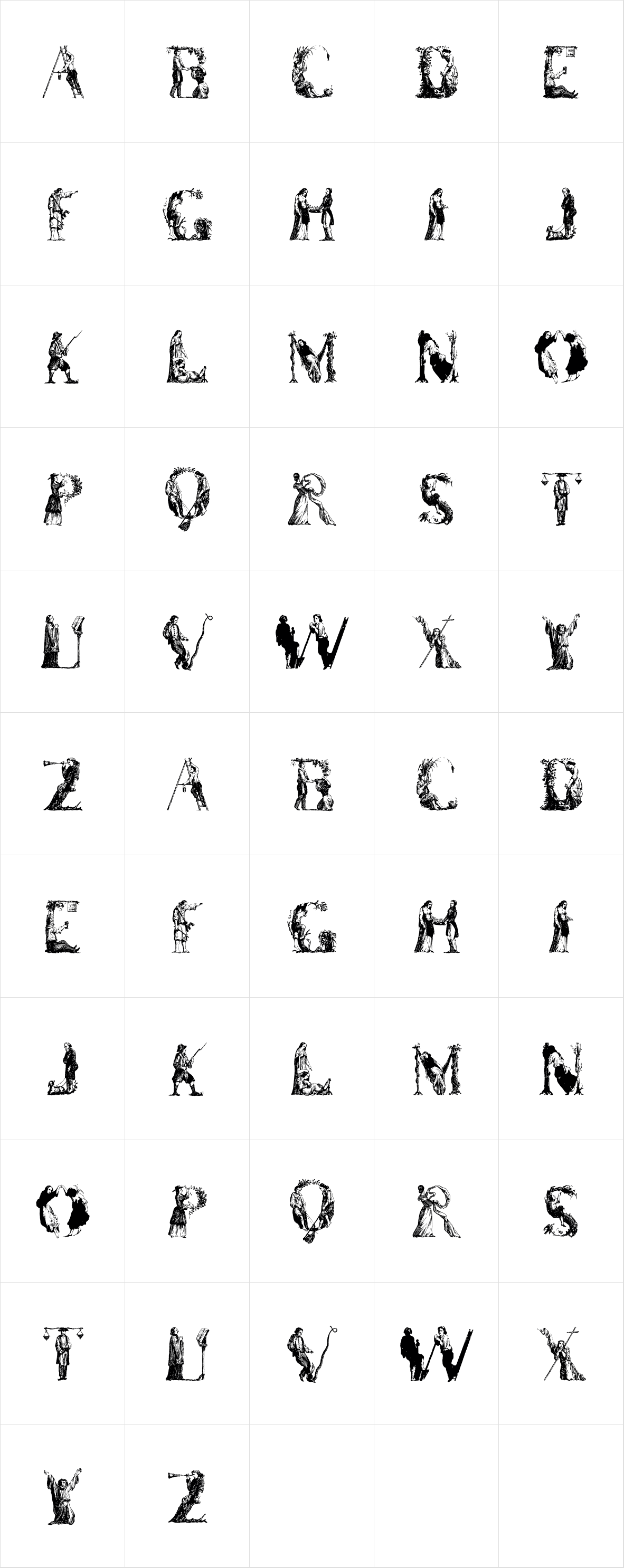
Human Nature Font
- A classic decorative font remastered by Intellecta. Only capital letters, but good for exotical display layouts, or decorative initials in fairy tale and childern books.